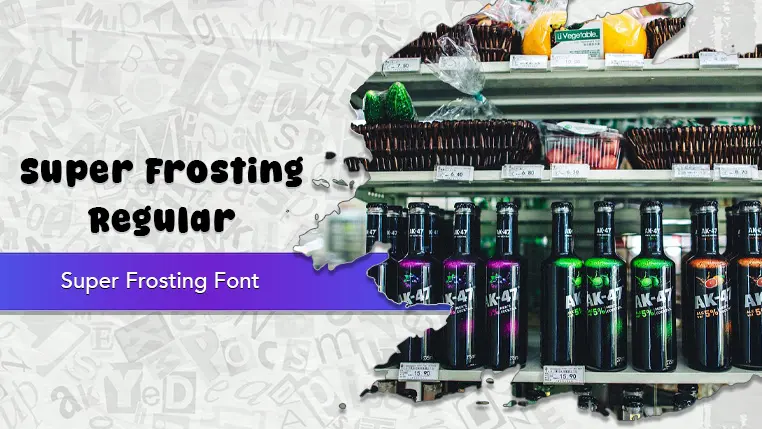
The Super Frosting font family may be ideal for you if you enjoy working on an artistic design project. The lively, expressive look of this typeface, which was created by fsuarez913, makes it ideal for Food & Beverage Branding/Packaging, Children's Brands & Products, Party Invitations & Decorations, Merchandise Design for t-shirts, mugs, or other merchandise that wants to evoke a fun, sweet, or whimsical feel. and other light-hearted visual projects.
Regular are the one primary font styles of the Super Frosting font family. You may build dynamic, visually appealing text layouts with the distinct flair that each style offers. With crisp, readable lines and a relaxed tone.